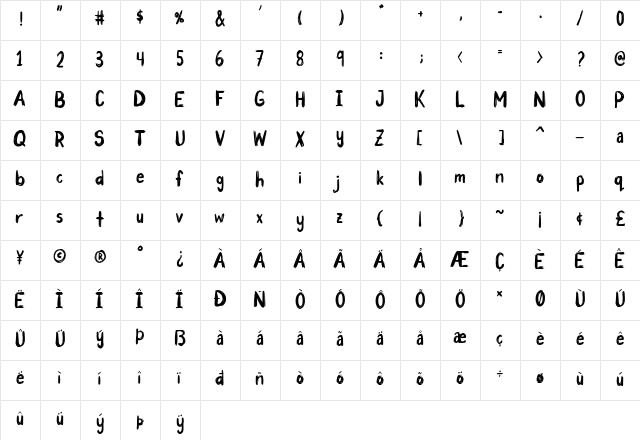
Trash Panda Regular
Design Context for Trash Panda Typeface
Trash Panda is a composed and adaptable typeface that performs quietly and consistently across a wide range of design contexts.